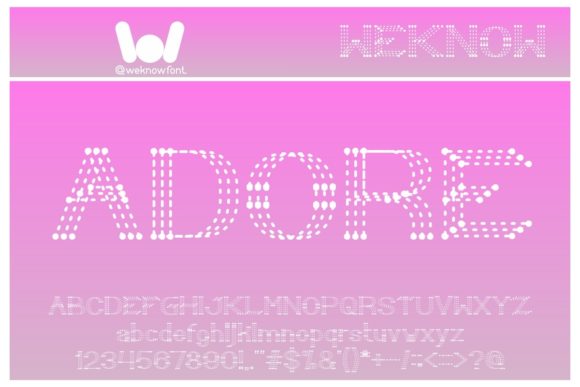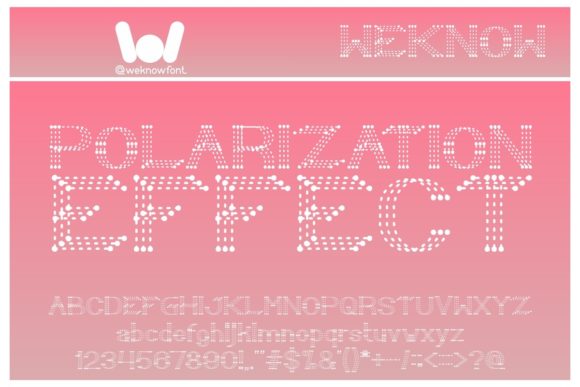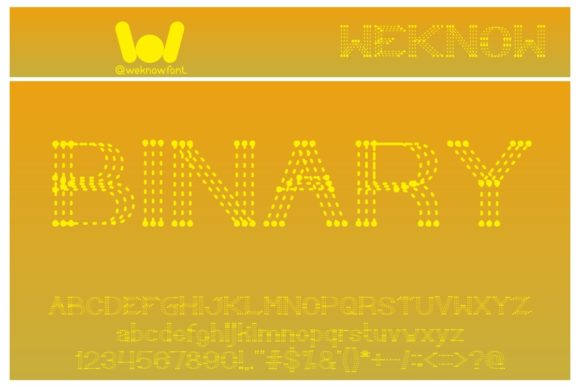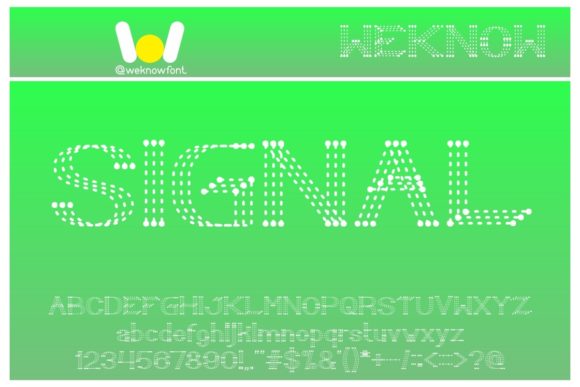
Introduction to Little Rainy Day Font Font
Fonts play a crucial role in design, and the Little Rainy Day Font font is a typeface that brings both character and versatility to any project. Whether you’re working on a branding project, a website, or a print design, the Little Rainy Day Font font offers a unique style that can elevate your work.
Little Rainy Day is a cool and dotted display font.
It will elevate a wide range of crafting ideas, from cards, to branding, labels and much more Add it confidently to your favorite creations and let yourself be amazed by the outcome generated.
Key Features of Little Rainy Day Font Font
Why Choose Little Rainy Day Font Font?
The Little Rainy Day Font font is more than just a typeface – it’s a design tool that helps you communicate your message with style and clarity. Its unique character set and versatile design make it suitable for a wide range of applications, from elegant invitations to bold headlines.
With its carefully crafted letterforms and balanced proportions, the Little Rainy Day Font font ensures readability and visual appeal across all mediums.
What makes Little Rainy Day Font font special?
The Little Rainy Day Font font stands out with its unique design, exceptional readability, and versatility across various design applications.